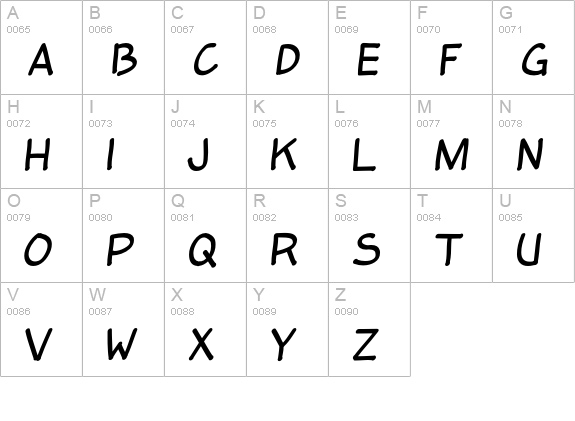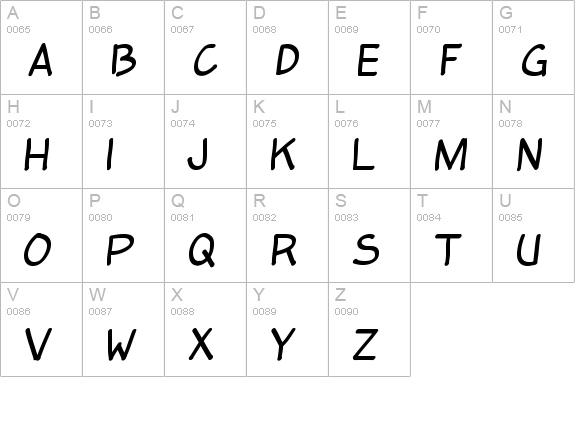
TennesseeType Font Details
Introducing TennesseeType font, a versatile and captivating typeface that effortlessly blends elegance with a touch of modernity. This stunning font is the perfect choice for those seeking a timeless yet contemporary look in their designs. With its sleek lines and refined curves, TennesseeType adds a touch of sophistication to any project, whether it be branding, advertising, or editorial design. But what truly sets TennesseeType font apart is its accessibility. We believe that creativity should be unrestricted, and that is why we are proud to offer this extraordinary font for free. Yes, you read that right - TennesseeType is freely available to download at FontsMarket.com. We believe that everyone deserves access to high-quality typography, regardless of their budget or resources. Designed with meticulous attention to detail, TennesseeType offers a wide range of weights and styles, ensuring that it can adapt to any design need. From thin and delicate to bold and commanding, this font has it all. Its versatility allows it to effortlessly convey a myriad of moods and messages, making it the perfect choice for designers looking to make a lasting impression. Whether you're working on a professional project or simply want to add a touch of elegance to your personal creations, TennesseeType font is here to elevate your designs to new heights. Download it for free at FontsMarket.com and unlock a world of possibilities. Let TennesseeType be your creative companion, guiding you through the realms of typography with grace and style.